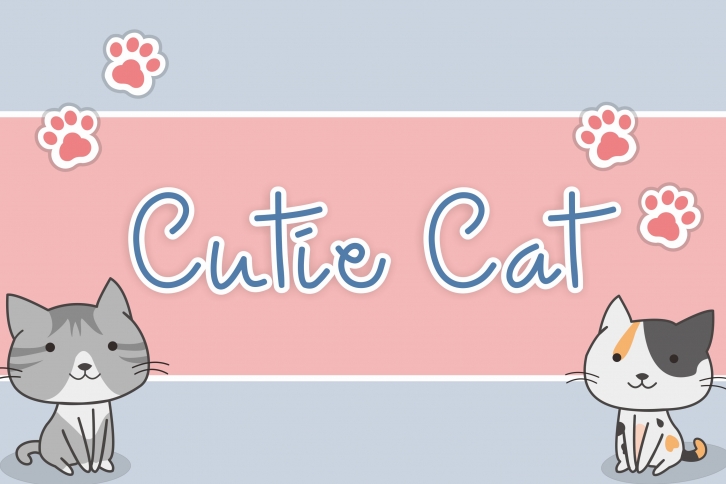
Cutie Cat is a gorgeous font that was realeased on May 4, 2020. The font can be used in many style contexts and design environments. Perfect for invitations, magazines, websites, logos, and more! It was designed by Aisyah and the file size is 10.71 MB. Thanks for checking out this font!